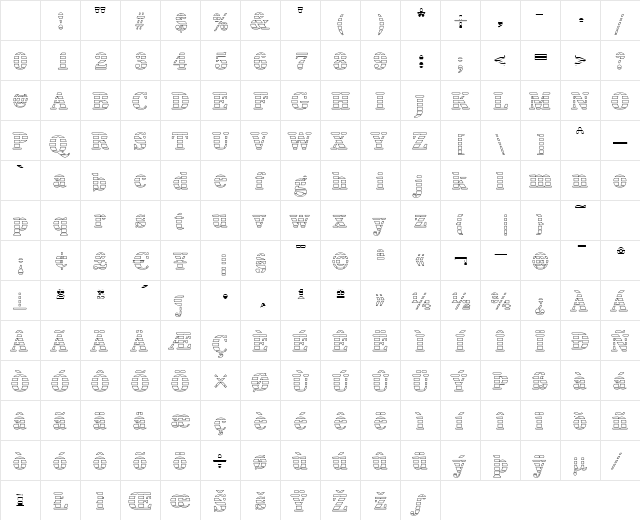
Complete IrisBeckerGradoN-ExBold Normal glyph index. Displaying only characters natively supported by IrisBeckerGradoN-ExBold Normal font.
IrisBeckerGradoN-ExBold is a composed and adaptable typeface that performs quietly and consistently across a wide range of design contexts. Its bold stroke weight gives it real presence on the page.